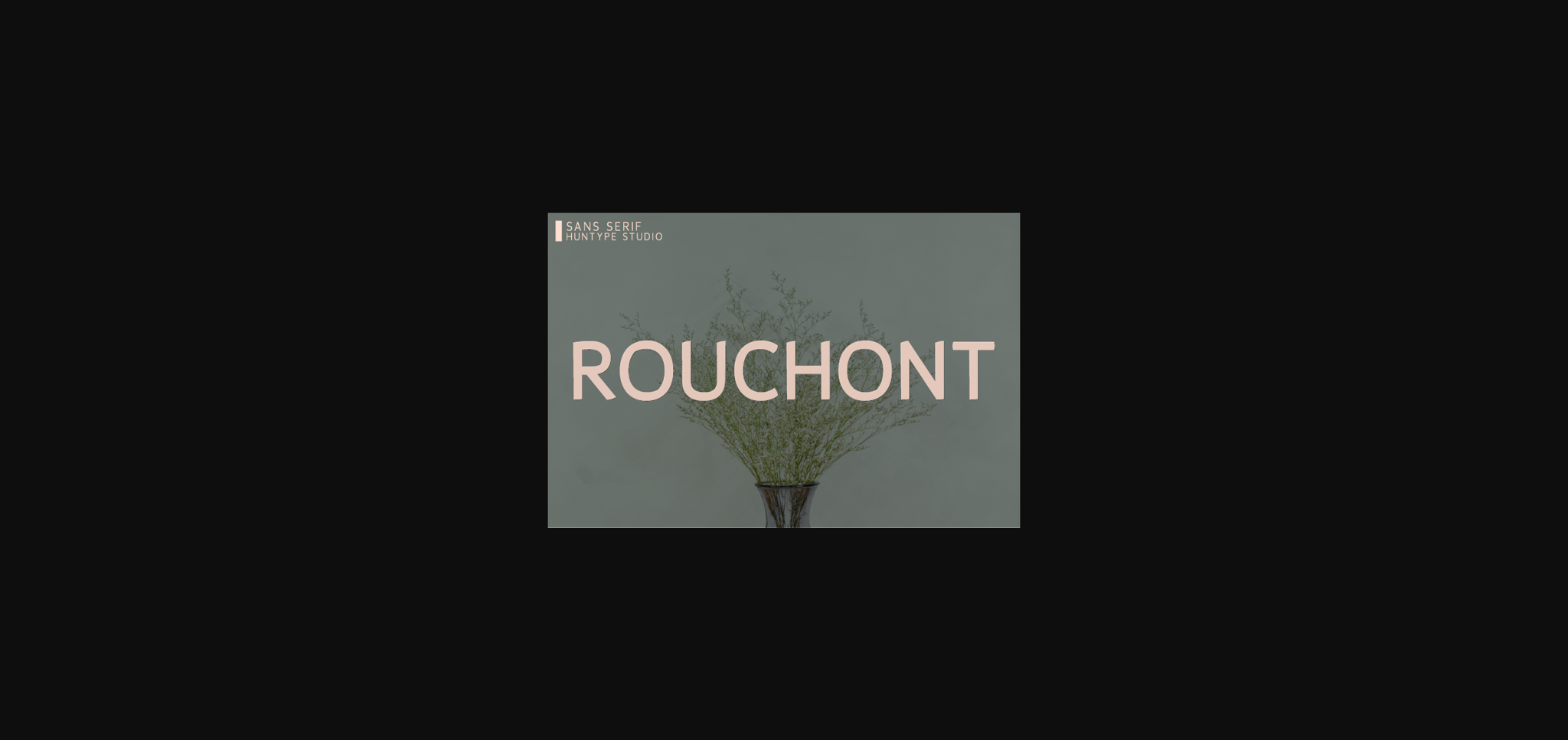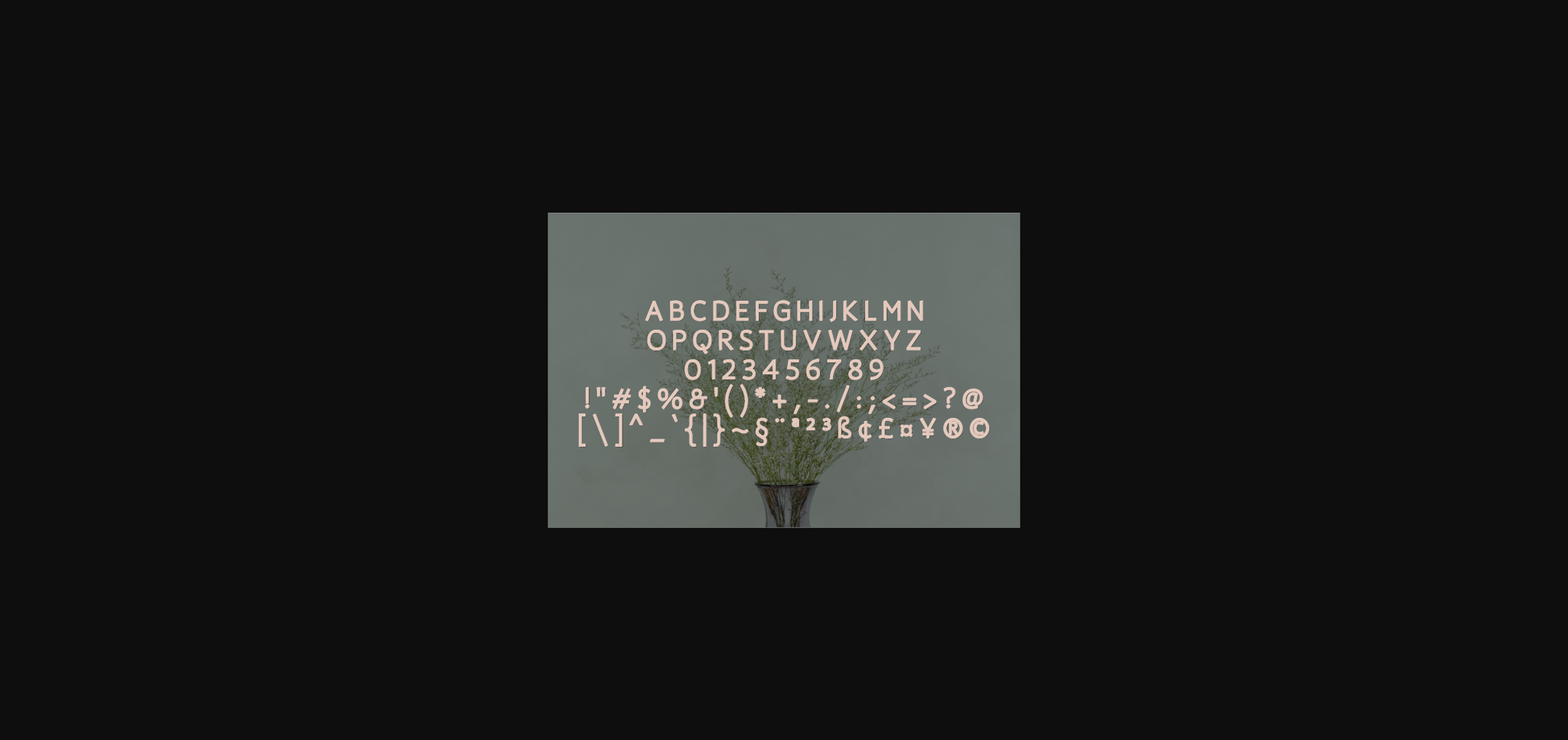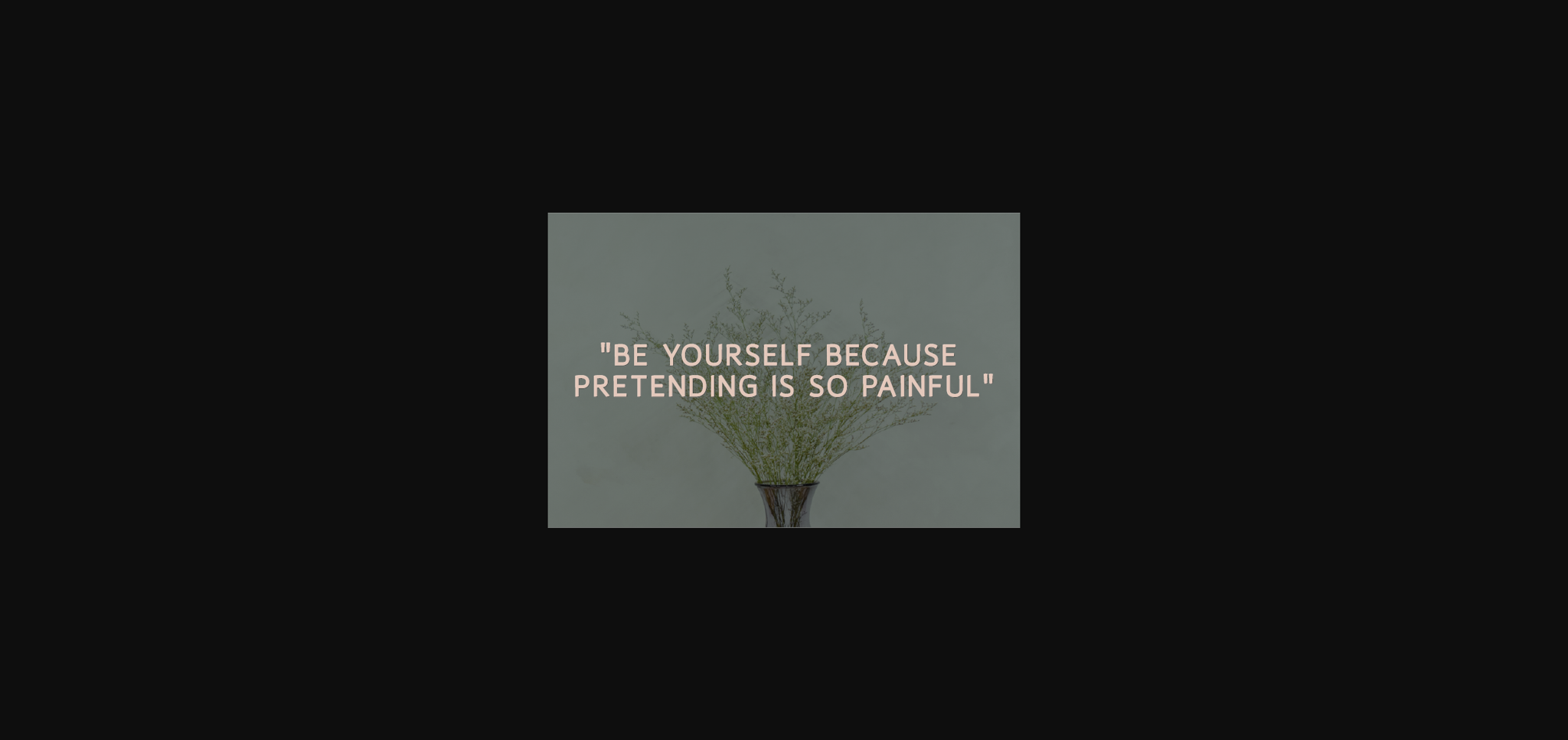
Rouchont Font
About Rouchont Font
Rouchont presents itself as a clean and tidy sans serif font, characterized by its minimalistic design. With its versatility, Rouchont seamlessly integrates into a diverse range of projects, enhancing their visual appeal and making them stand out with effortless sophistication.
What sets Rouchont apart is its ability to effortlessly adapt to various design contexts. Whether you’re crafting logos, designing websites, or creating marketing materials, Rouchont’s clean lines and balanced proportions ensure clarity and readability, making it suitable for a wide variety of applications.
The beauty of Rouchont lies in its simplicity and versatility. Its minimalistic style adds a touch of modernity to any project it graces, ensuring consistency and coherence across all platforms. Whether used for headlines, body text, or as a focal point in your composition, Rouchont delivers a visual impact that is both striking and memorable.
Prepare to be impressed by Rouchont as it elevates your creative endeavors to new heights of excellence. From sleek and minimalist layouts to bold and eye-catching graphics, Rouchont enhances your designs with its understated elegance.
Embrace the versatility of Rouchont and unlock its full potential to create standout designs that leave a lasting impression. With Rouchont by your side, your creativity knows no bounds, and your projects are destined to stand out in a crowded digital landscape.
Rouchont’s clean lines and balanced proportions make it a standout choice for any project. Whether it’s logos, websites, or marketing materials, Rouchont adds sophistication. Its minimalist style ensures clarity and readability across platforms, making a lasting impact. With Rouchont, your designs will stand out with effortless elegance, captivating your audience.
Embrace its versatility and notice how it enhances your creative ideas, elevating them to new levels of excellence. Rouchont’s ability to seamlessly integrate into a wide range of projects ensures consistency and coherence, making it a valuable asset in your design toolkit.